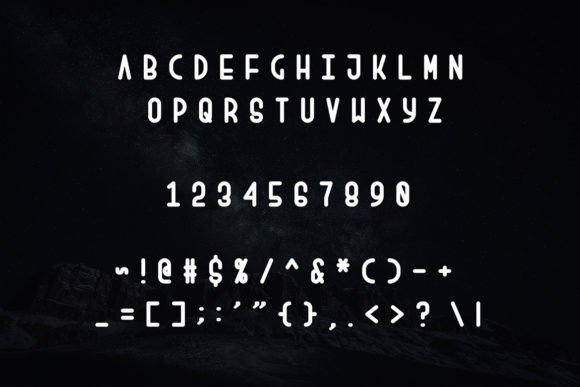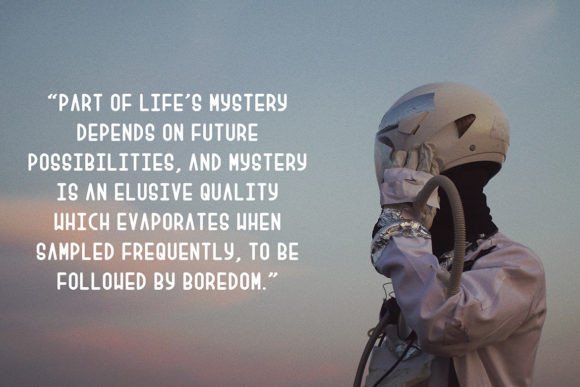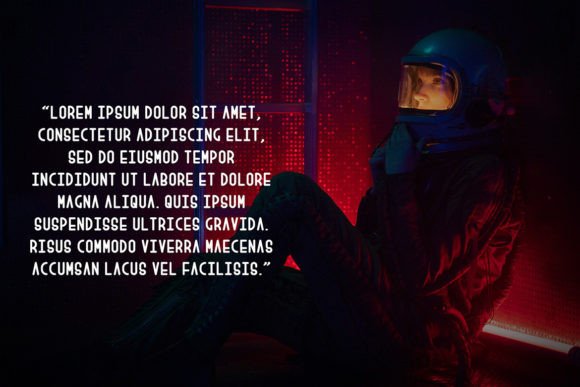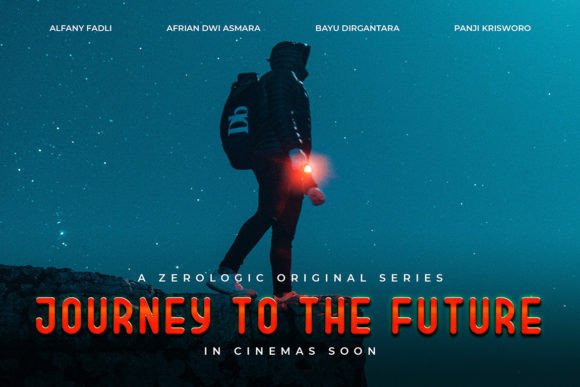
Introduction to Melba Foster Font
As a designer, there’s nothing quite like the thrill of seeing a project come to life. It’s that moment when all the pieces fall into place, and your vision is finally realized. For me, it was a late-night session working on a client’s logo, trying to find the perfect combination of style and simplicity. And then it happened – I stumbled upon the Melba Foster Font, and everything changed.
The Melba Foster Font is more than just a font; it’s a design resource that can elevate any creative project. With its modern and neat sans serif design, it’s the perfect addition to any font library. Whether you’re working on a free download or a high-end commercial project, this font has the potential to make a real impact.
With its transparent background and high-quality design, the Melba Foster Font is a valuable asset for any designer. In this article, we’ll dive deeper into what makes this font so special and why it’s a must-have for any design enthusiast.
Key Features of Melba Foster Font
- High-quality design resource with a unique, elegant style, perfect for creative projects.
- Features a transparent background, allowing for easy layering and customization in creative projects.
- Designed with precision and attention to detail, resulting in a crisp and clear font with a resolution of 300 DPI.
- Perfect for use in a variety of creative projects, including logos, typography, and graphic design.
Honest Review: Melba Foster Font
One of the things that works well is its high quality. The font is clean, modern, and highly legible, making it perfect for a creative project that requires a professional touch.
Here are some of the features that I particularly like about the Melba Foster Font:
- Transparent background, making it easy to use on any background
- Perfect for creative projects, such as logos, branding, and marketing materials
- The font is not as extensive as some other font families, with only a limited number of styles and weights
- ⚠️ The font may not be suitable for large-scale or complex designs, due to its relatively simple design
Overall, I’m impressed with the Melba Foster Font. It’s a great resource for designers who need a high-quality font for their creative projects. While it may have some limitations, it’s definitely worth considering for your next design project. ✨
For getting the most out of the Melba Foster Font, use it for creative projects that require a unique and high-quality design. Common use cases include branding materials, social media graphics, and advertising campaigns. The font’s transparent background makes it ideal for designs with complex backgrounds.